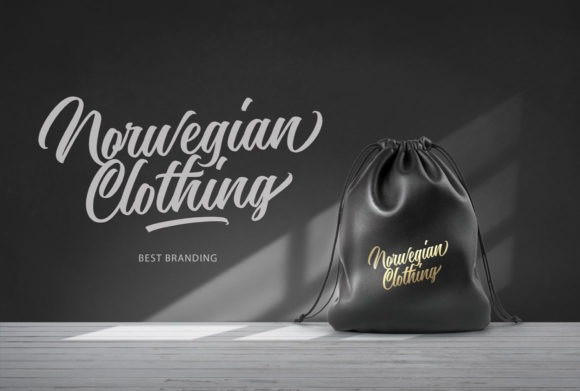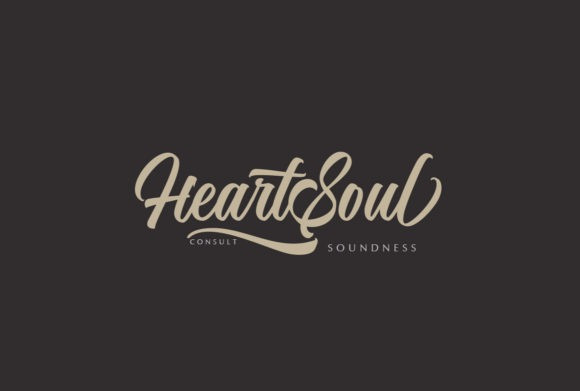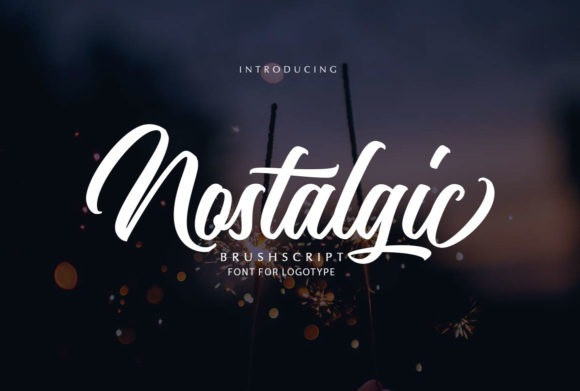
Nostalgic Script Font
Nostalgic is a charming and sentimental script that’s perfect for branding projects, logos, badges, insignia, packaging, headlines, posters, t-shirt/apparel, greeting cards, and much more. Fall in love with this fancy script!